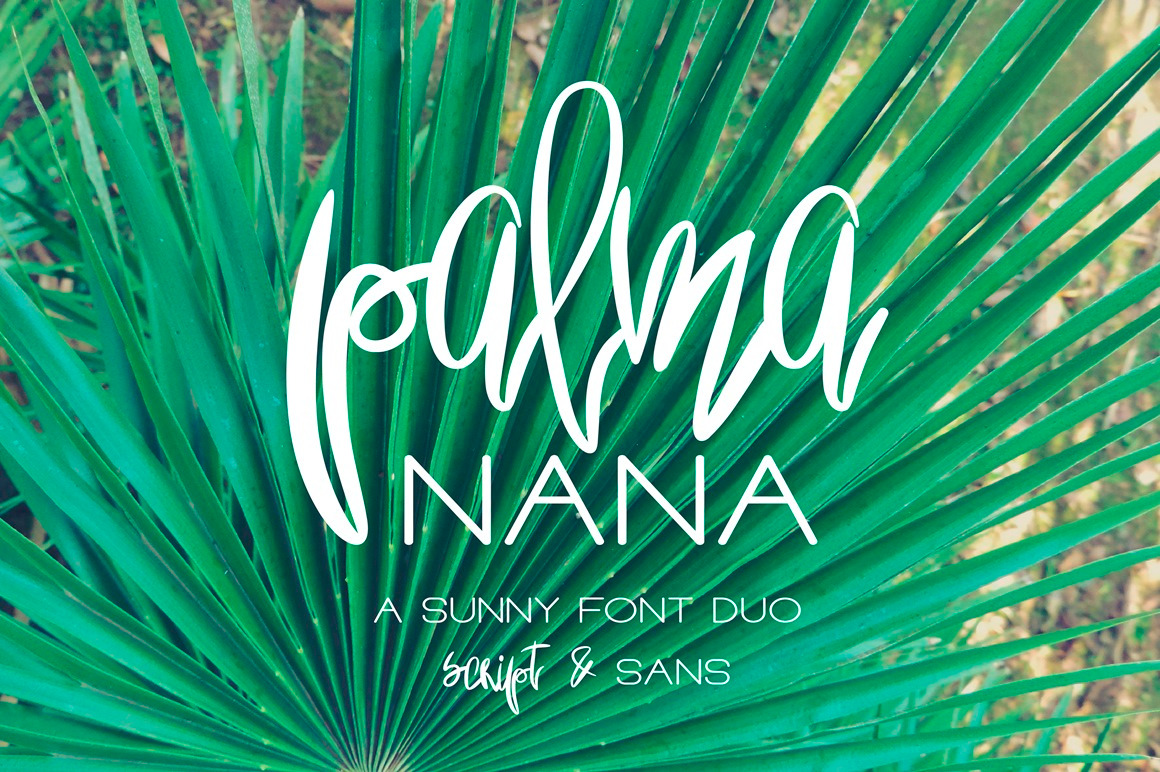
Palma Nana - Sunny Font Duo
Hello! Introducing Palma Nana - a Sunny Font Duo.
Palma Nana Font Duo includes two different typefaces: quirky hand-drawn script and thin sans serif - for amazing contrast combinations.
Palma Nana Features:
Palma Nana Regular (Script)
- Uppercase letters
- Lowercase letters
- Alternates for all lowercase
- Punctuations
- Accented characters (language support)
Palma Nana Sans
- Uppercase letters
- Some punctuations